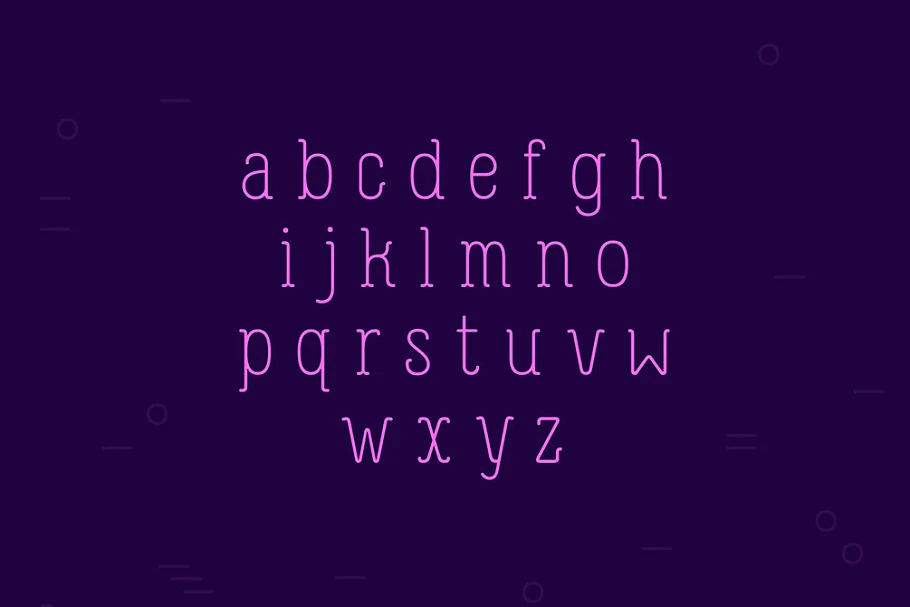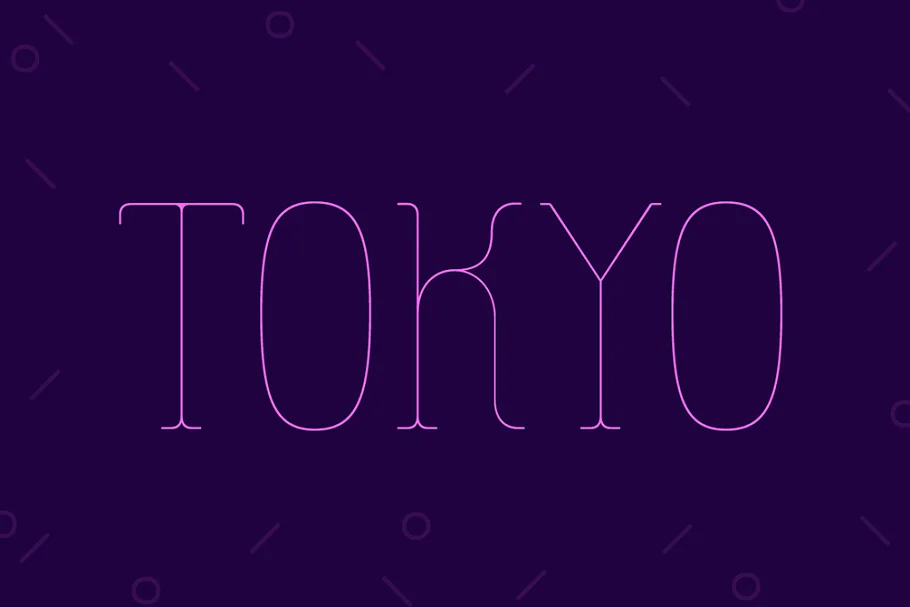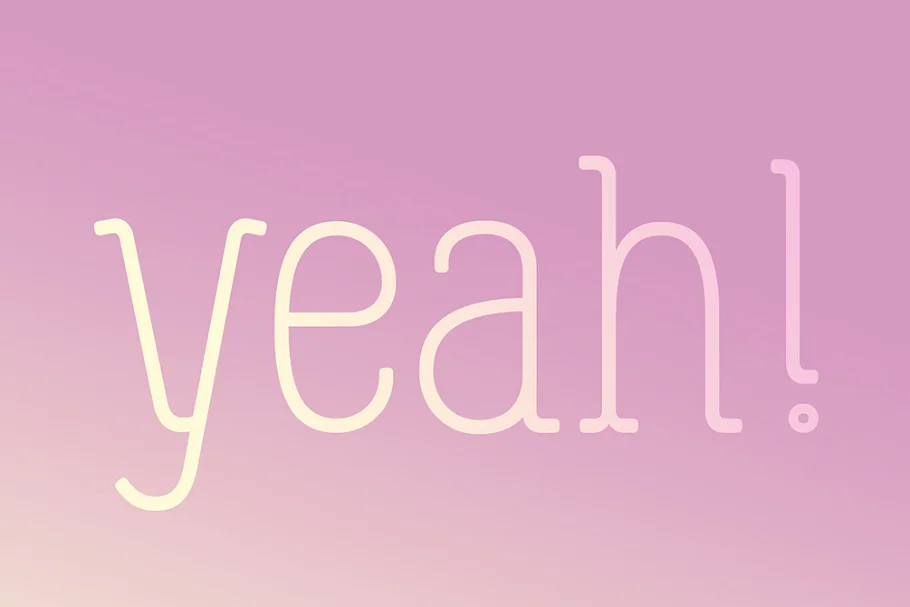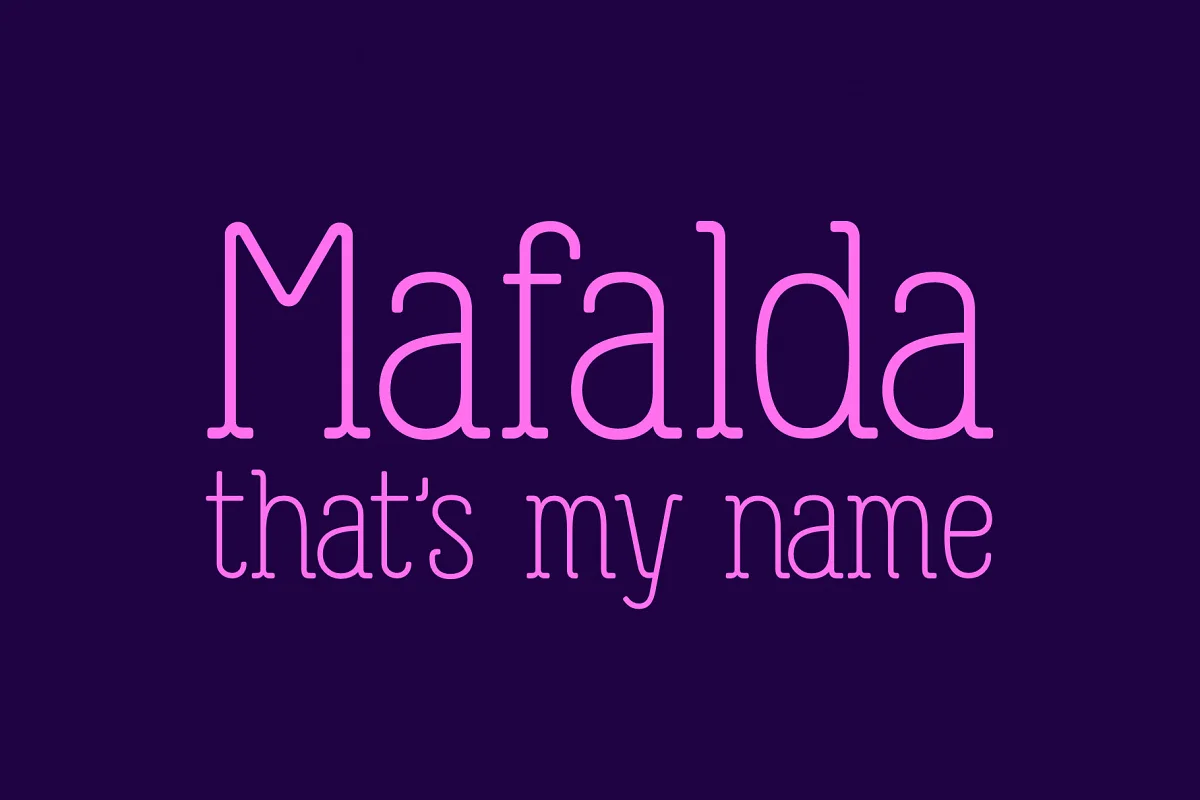
About the Mafalda Type Font
Mafalda is a serif typeface inspired by Gothic Sans and Neo-Humanist Sans types with low stroke contrast, large x-height, very open apertures, and just a bit condensed width.
The uppercase letters carry a slight sense of old age, something like Art Nouveau mixed with Art Deco, bringing a balanced mood and aesthetic to all types of families.